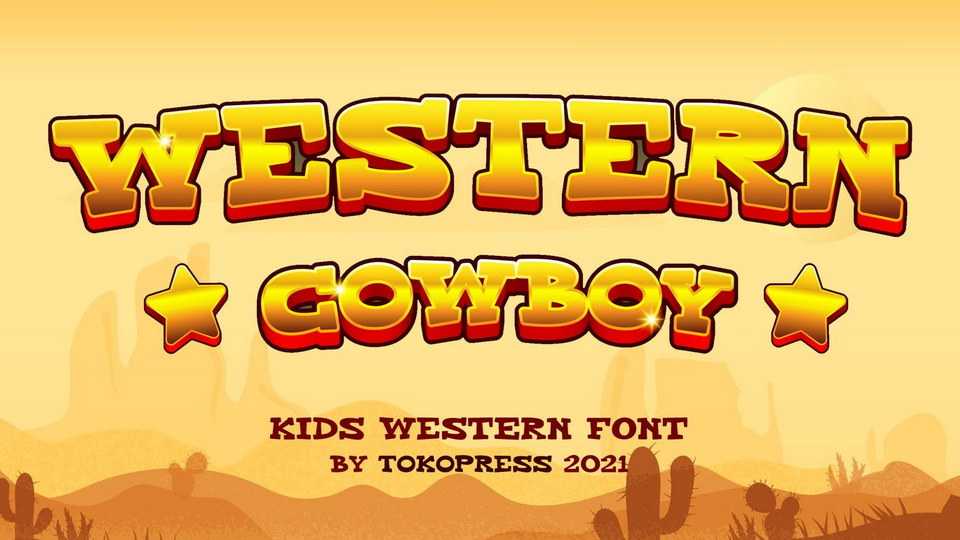
Download Western Cowboy font, a gaming typeface. It is western, it is a bouncy baseline, it is Western Cowboy, your new favorite western kids font in town.